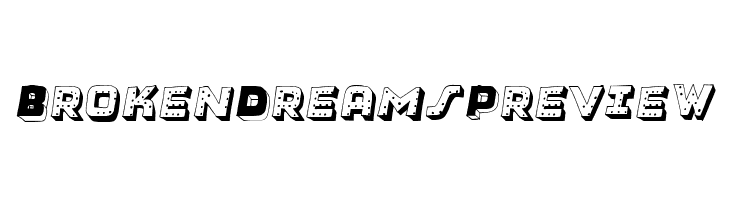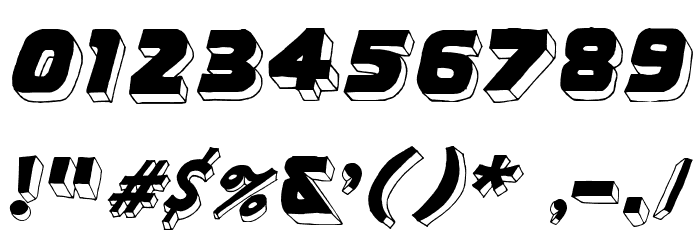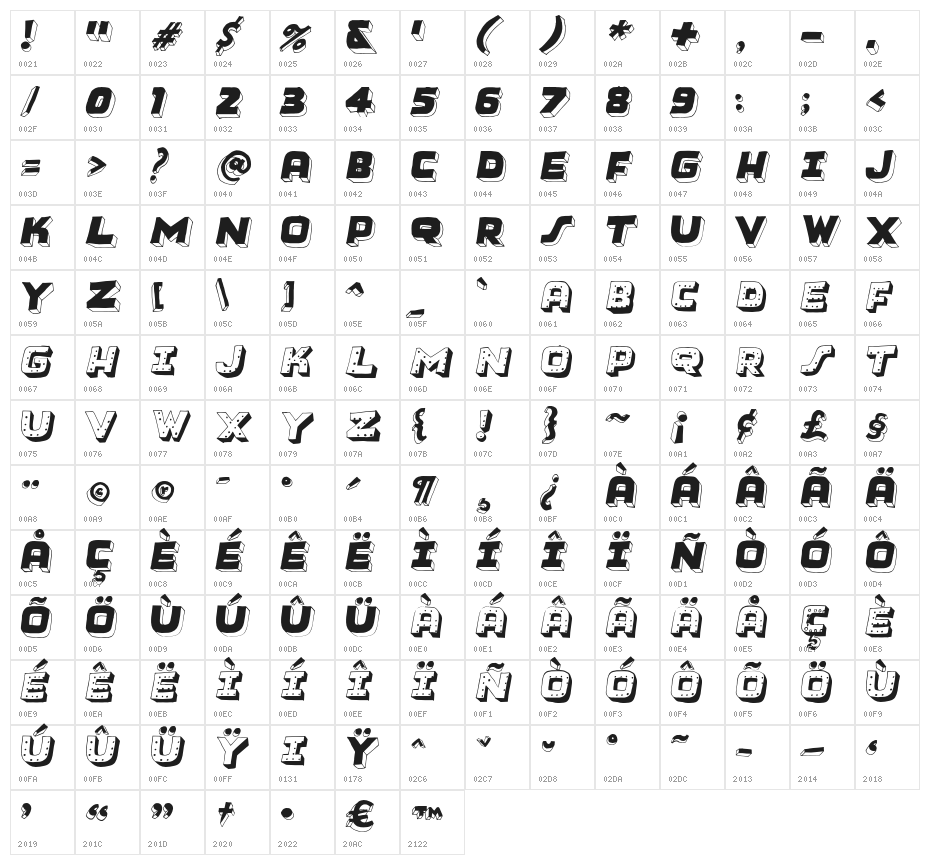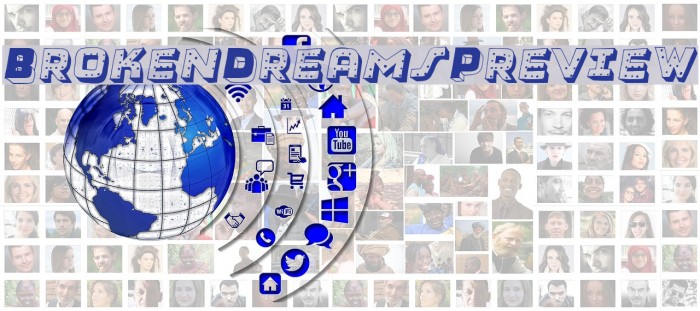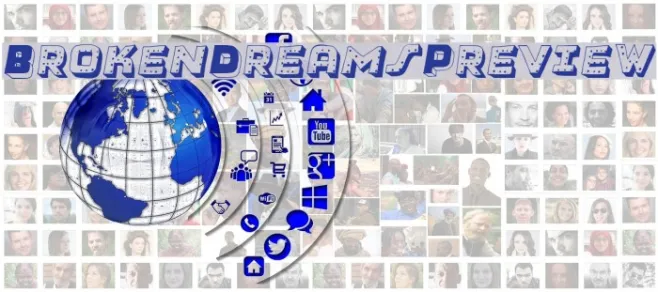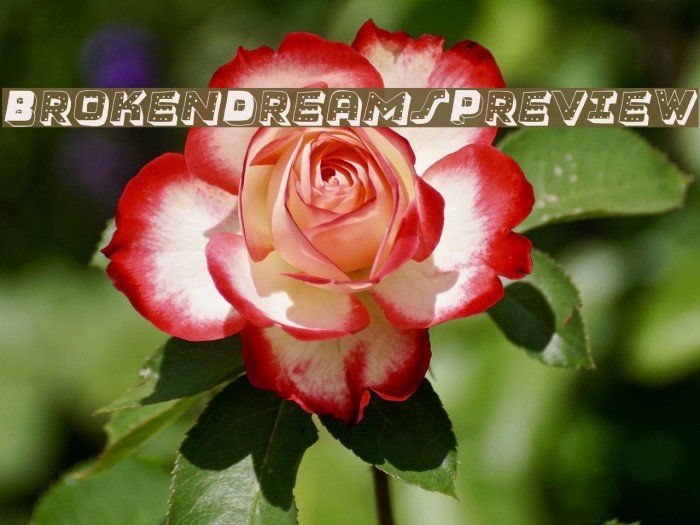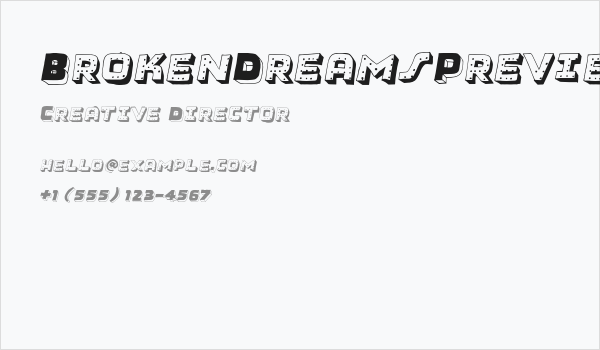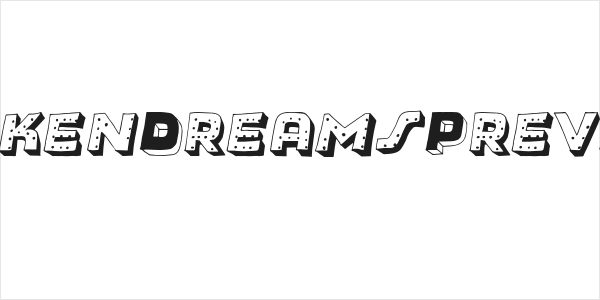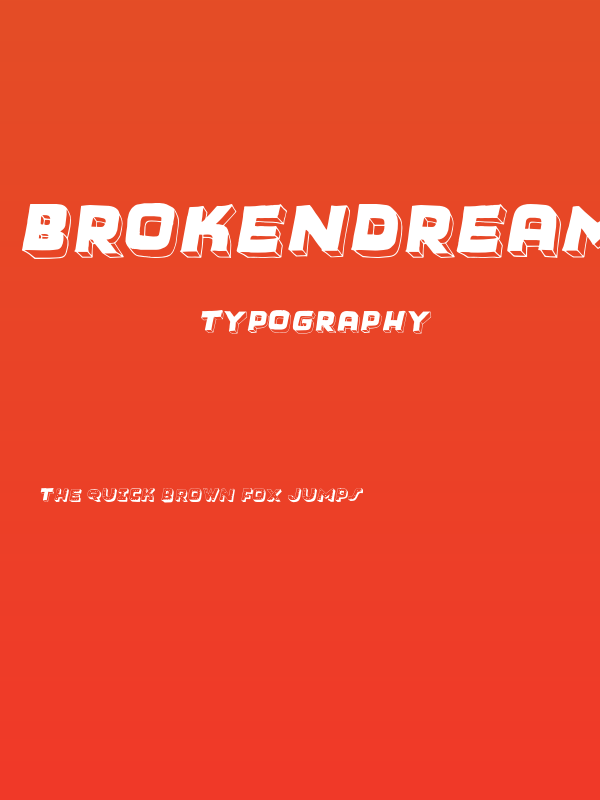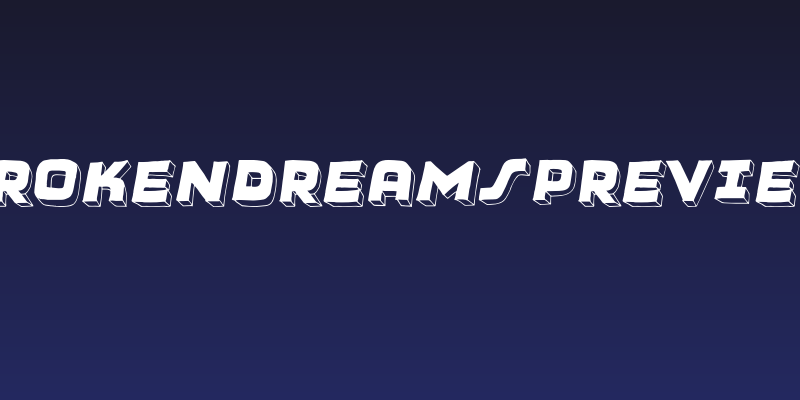
BrokenDreamsPreview Font
BrokenDreamsPreview Description
This font features a bold, three-dimensional style with a playful and dynamic appearance. Each character is designed with a shadow effect that gives it depth and a sense of movement. The uppercase letters are solid and robust, while the lowercase letters maintain the same energetic style. The numbers and special characters follow the same design principles, ensuring consistency throughout. The font's unique style makes it stand out, with a slightly retro yet modern vibe, perfect for grabbing attention.
| Proposed Projects | Ideal for posters, headlines, logos, and any design needing a bold, eye-catching typeface. |